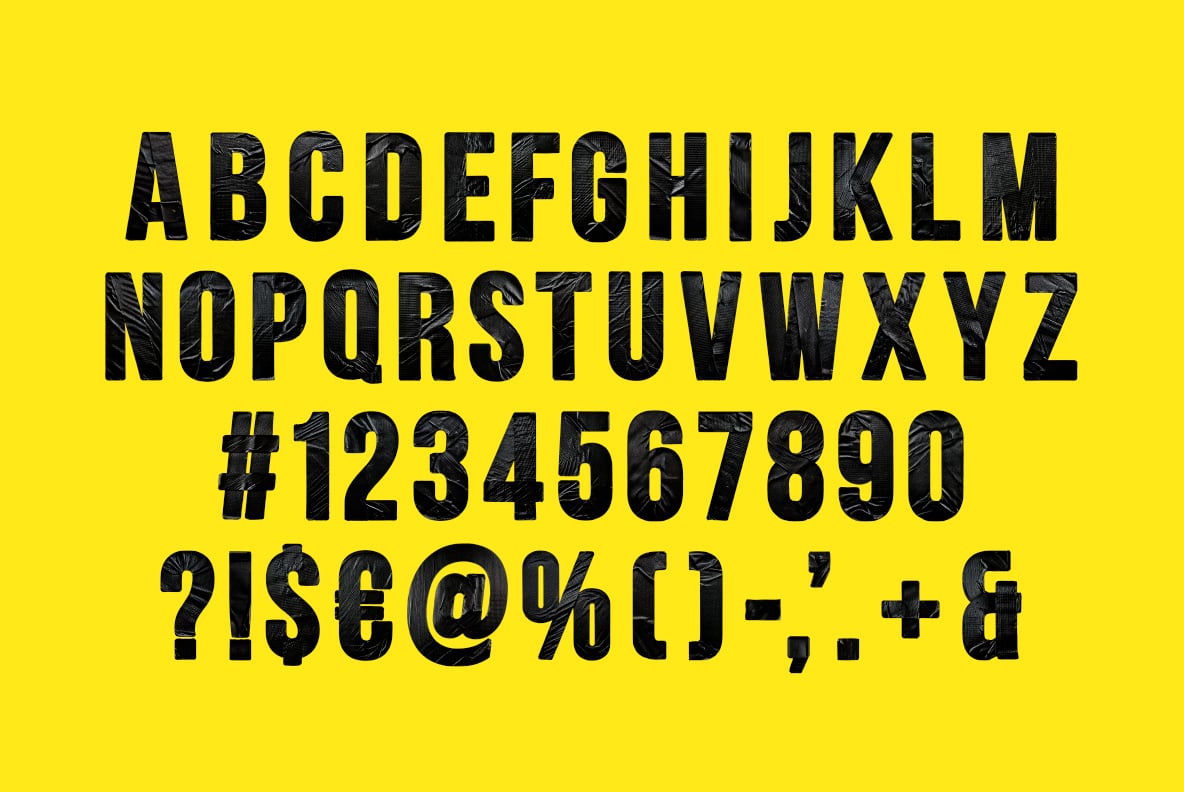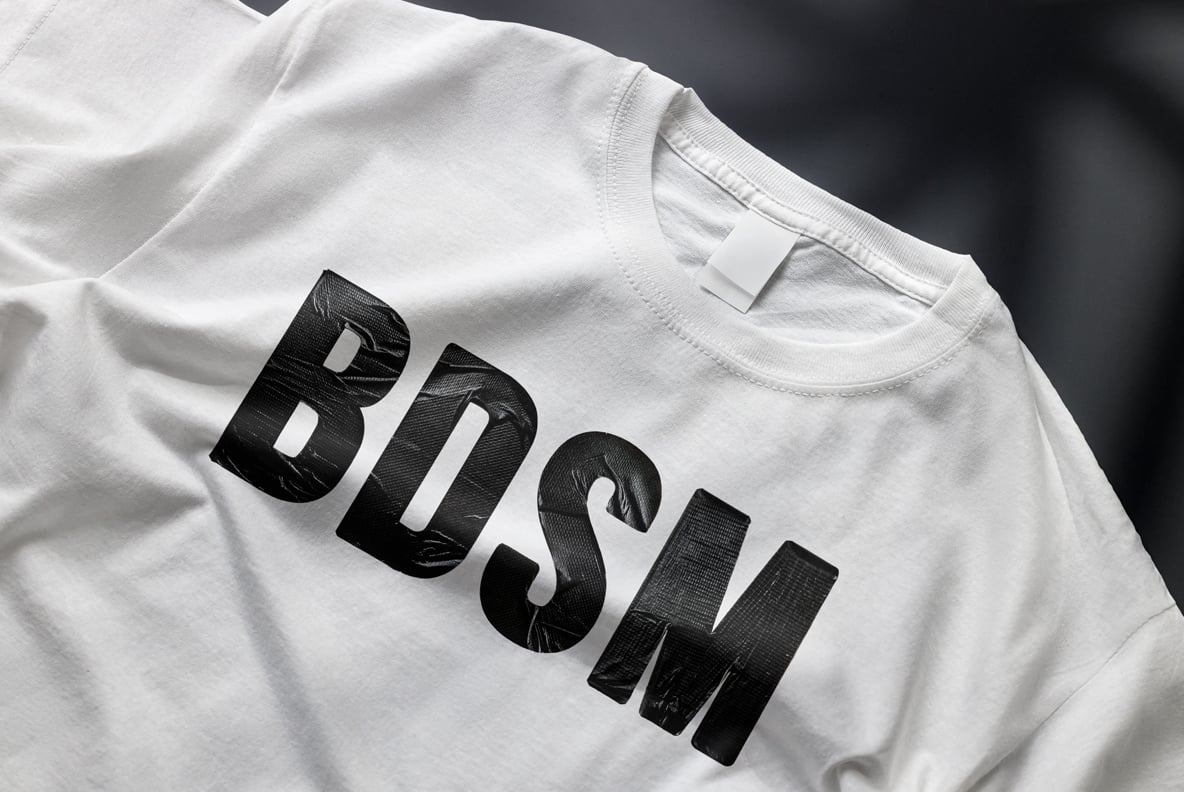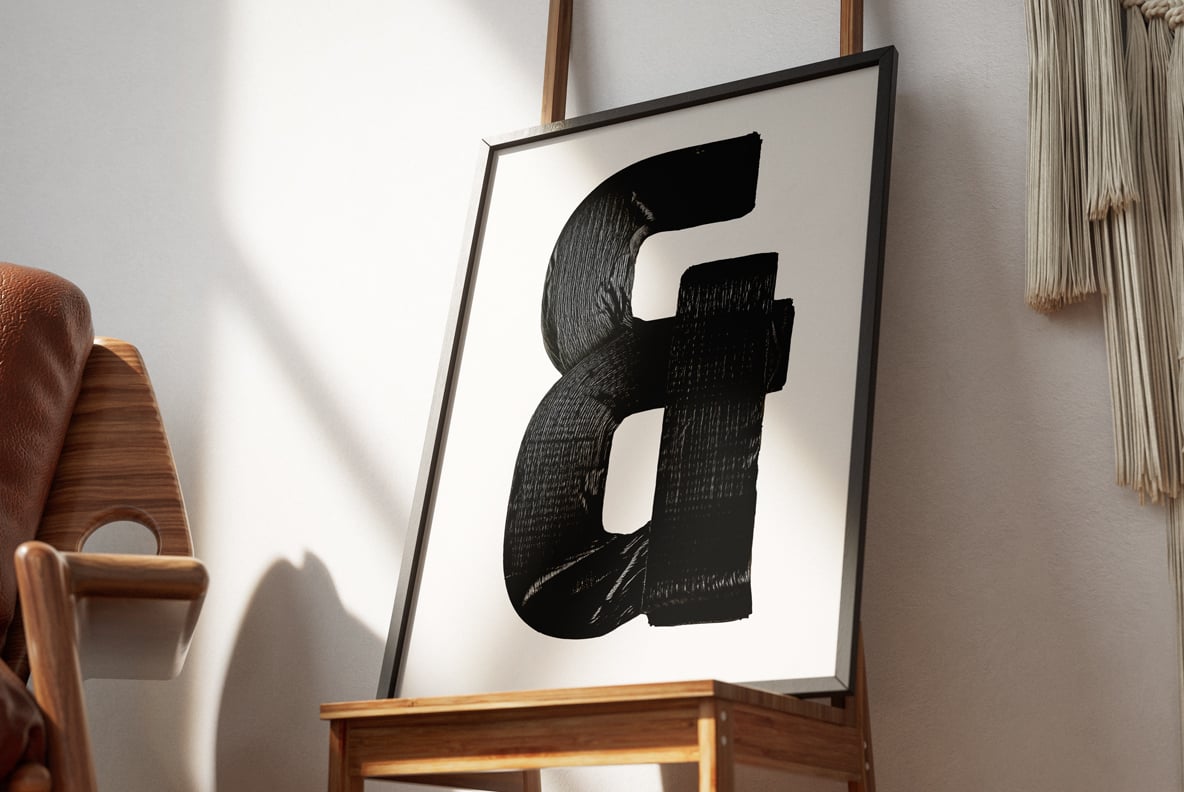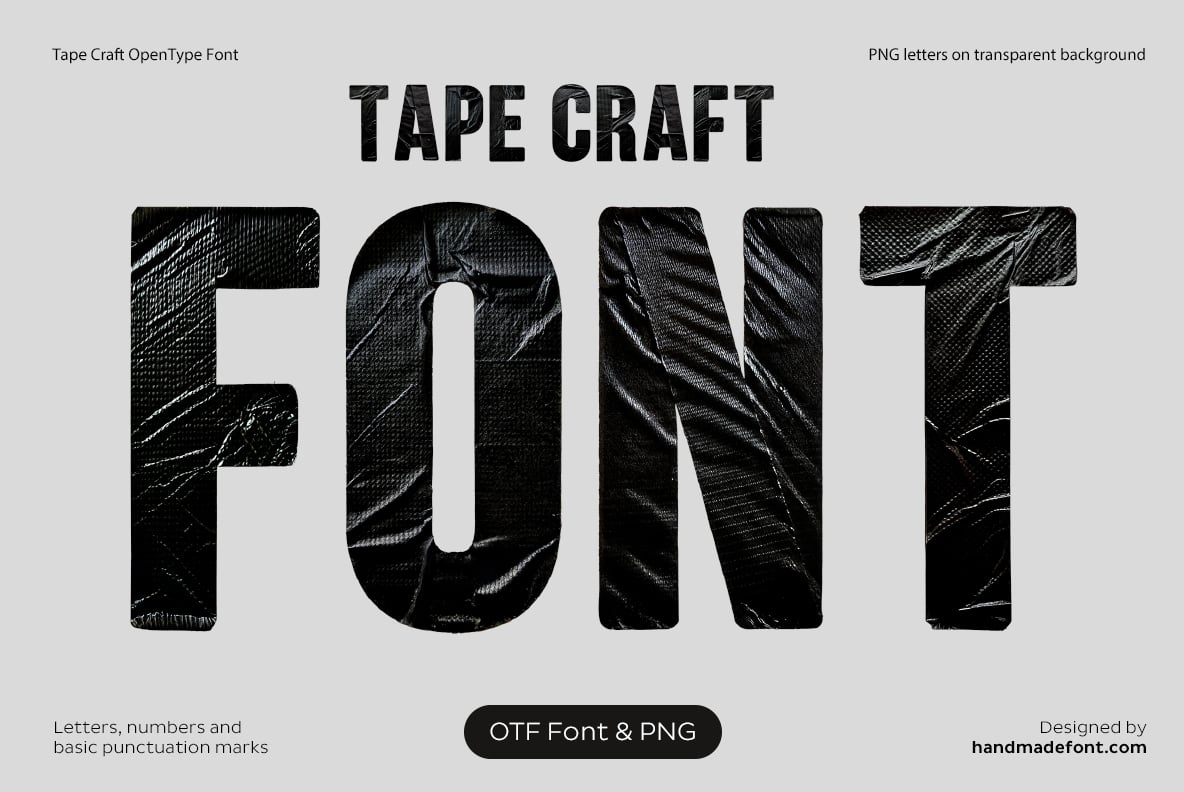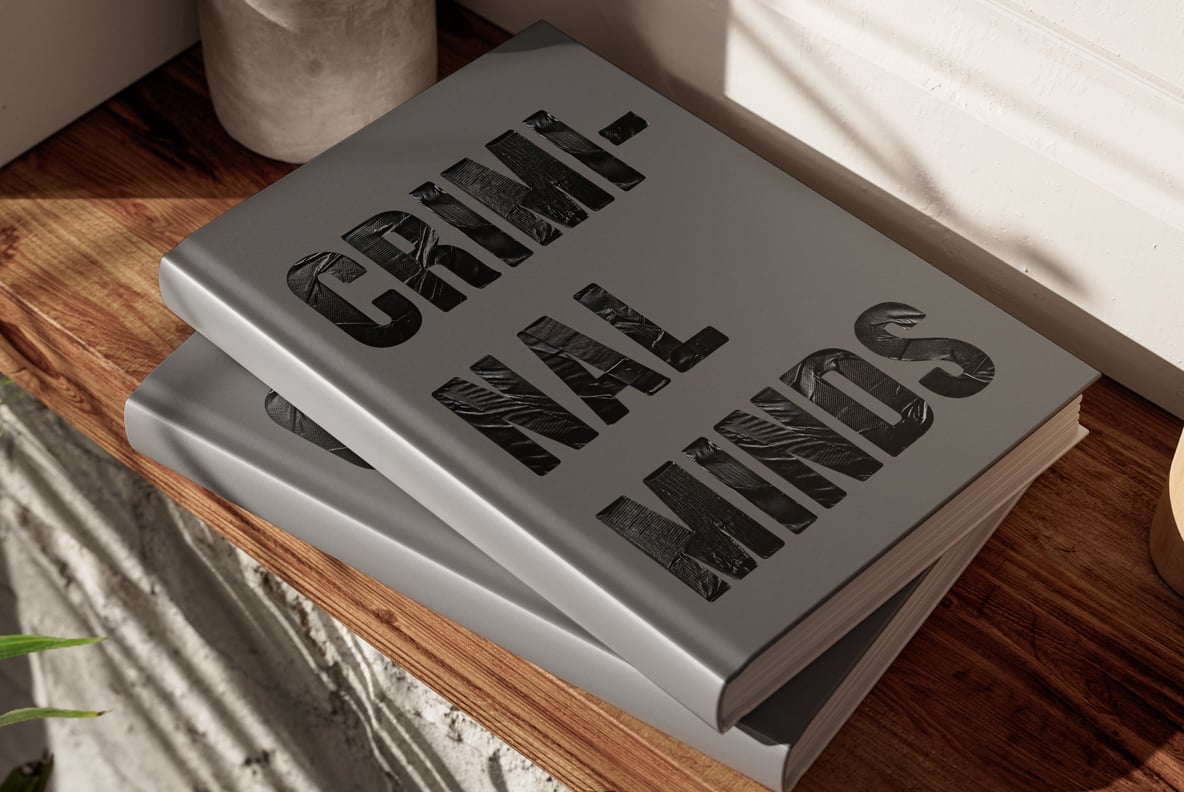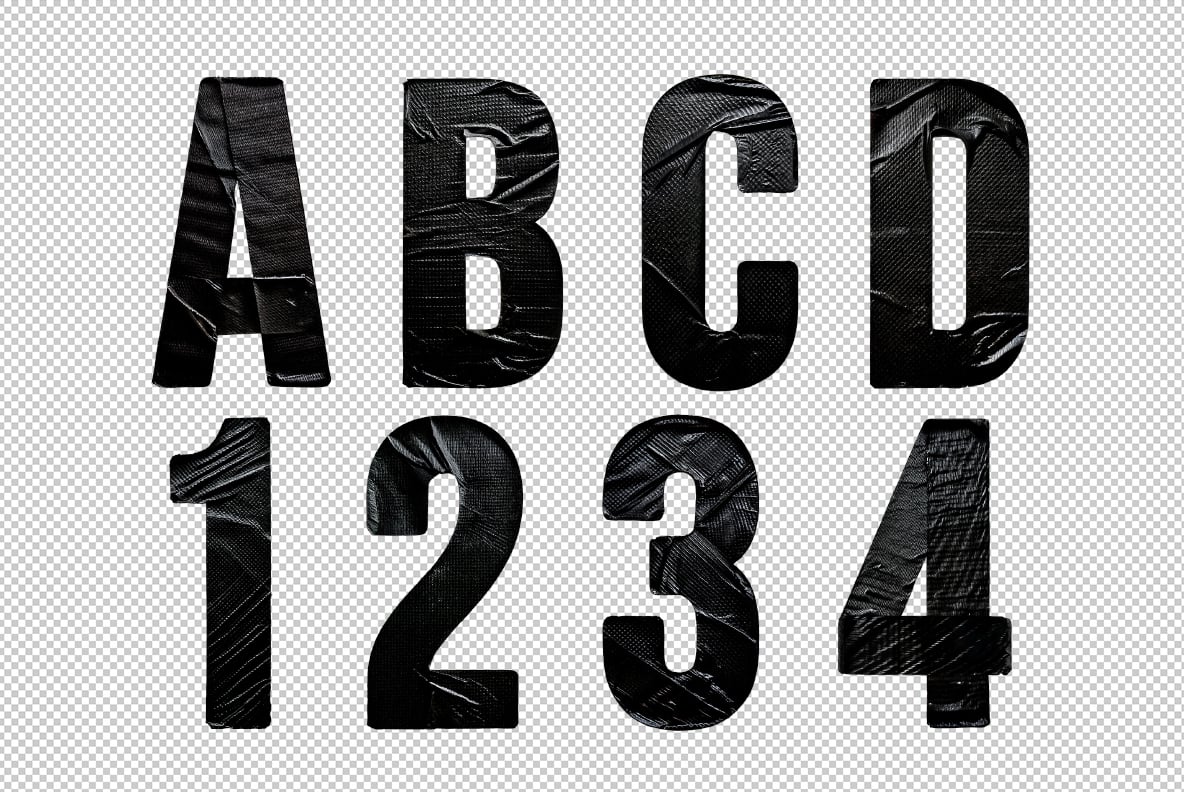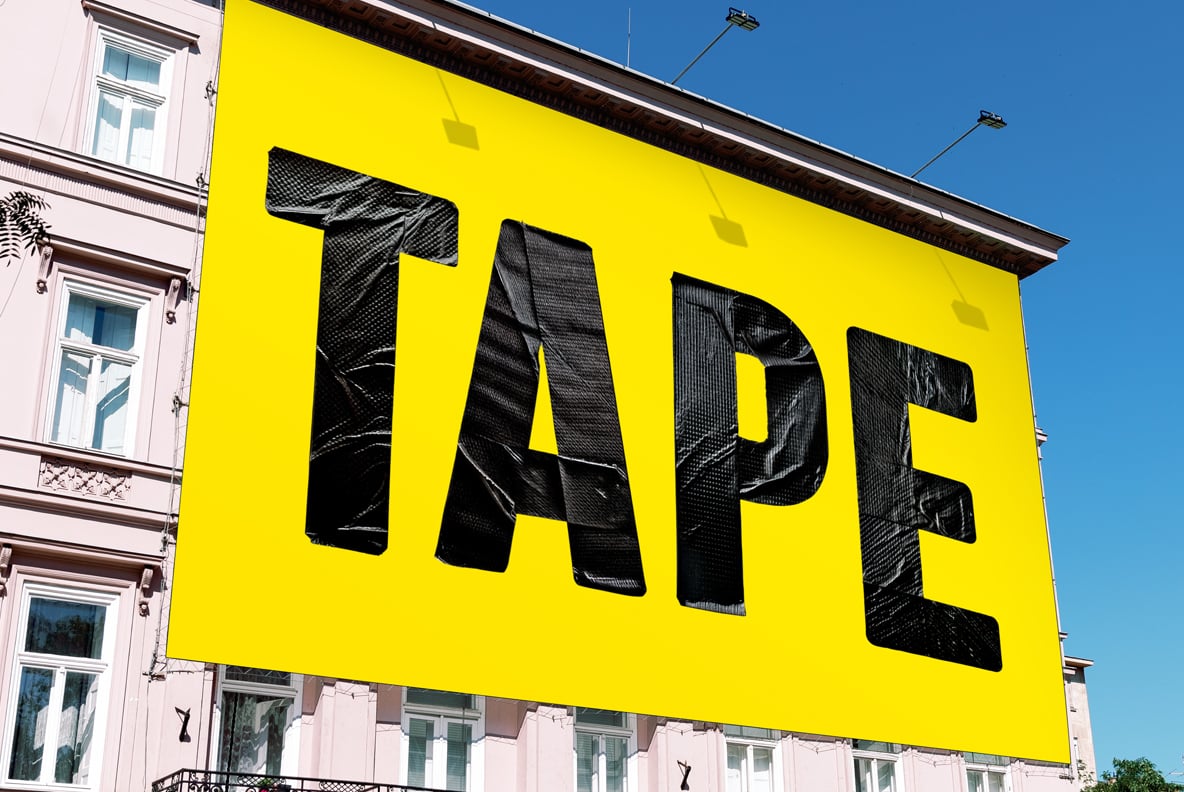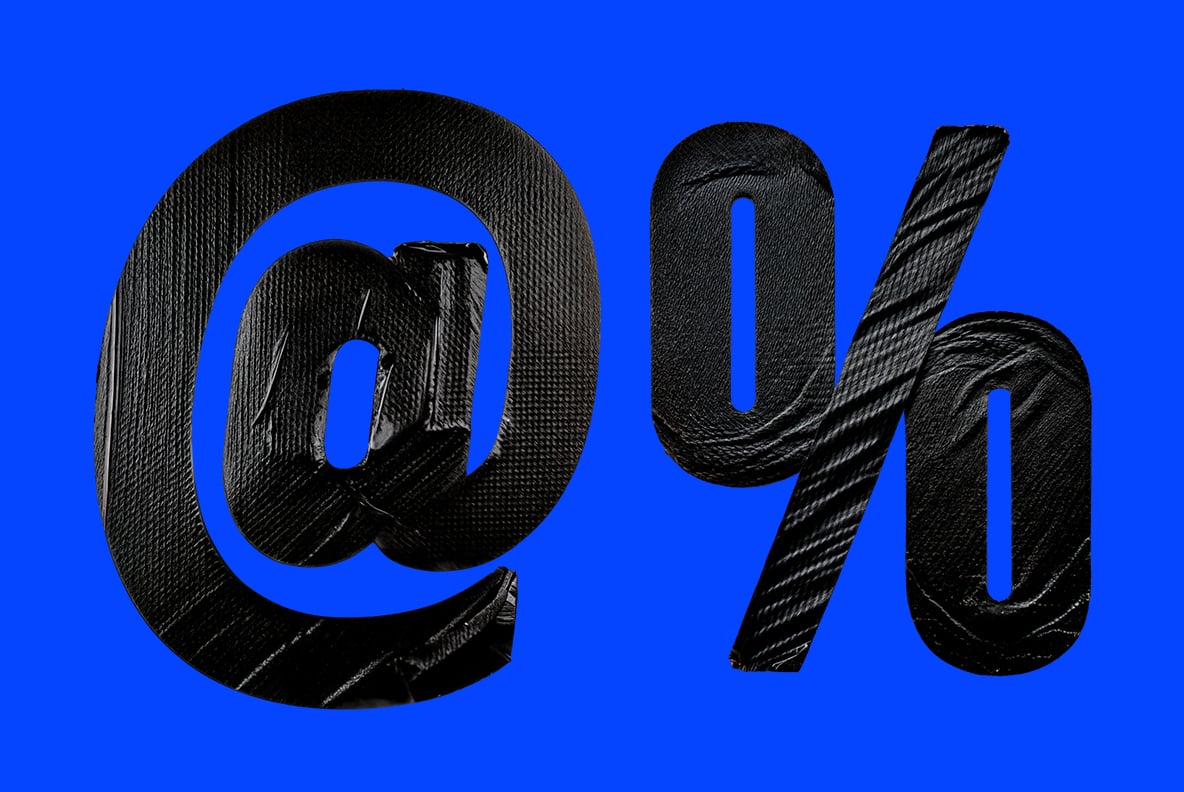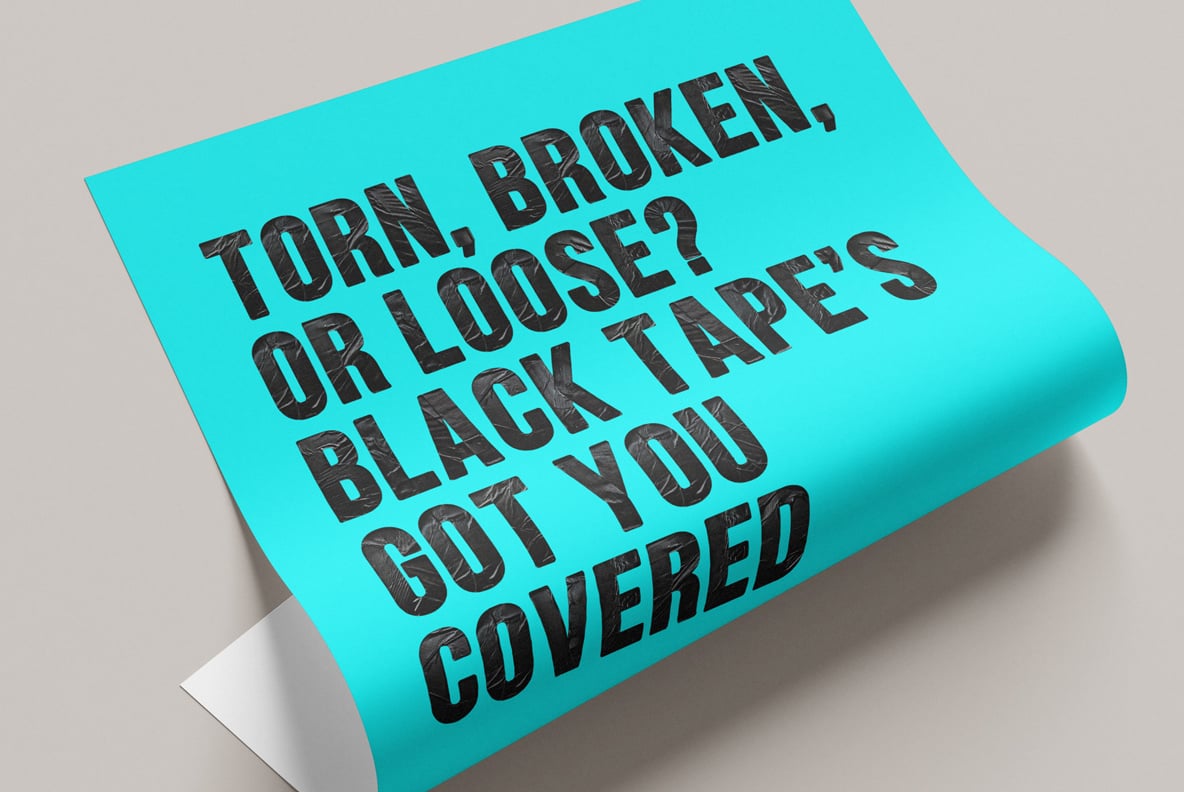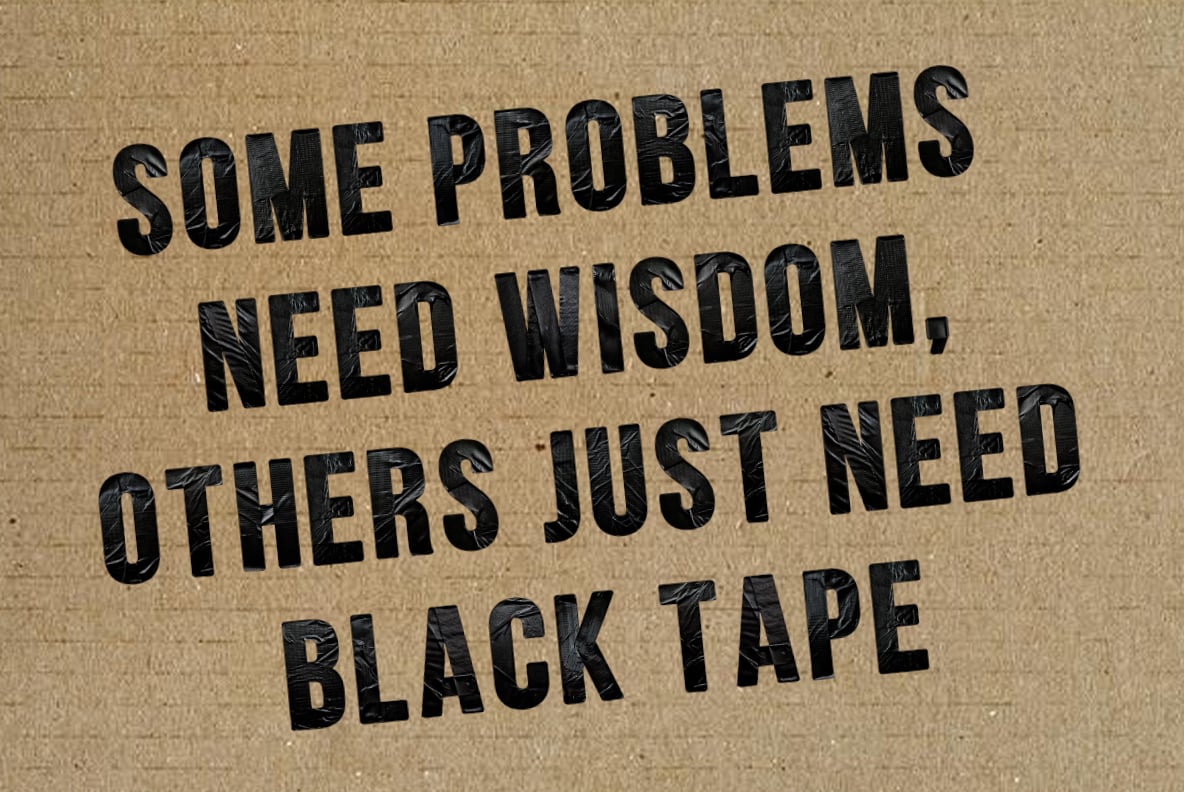
Tape Craft Font
Black, bold, and brilliantly sticky—Tape Craft Font is the ultimate adhesive for your words! This tape-inspired font is built from rugged black duct tape, complete with wrinkles, creases, and a rebellious DIY spirit. Each letter looks like it’s been torn, patched, and slapped together for an industrial, no-nonsense vibe. Whether you're sealing a statement, wrapping up a bold design, or repairing boring typography, this tape alphabet sticks with style. Waterproof? Maybe. Durable? Definitely. Messy? In the best way possible. So, slap some letters together and let your words hold strong—because this tape lettering won’t come unstuck!